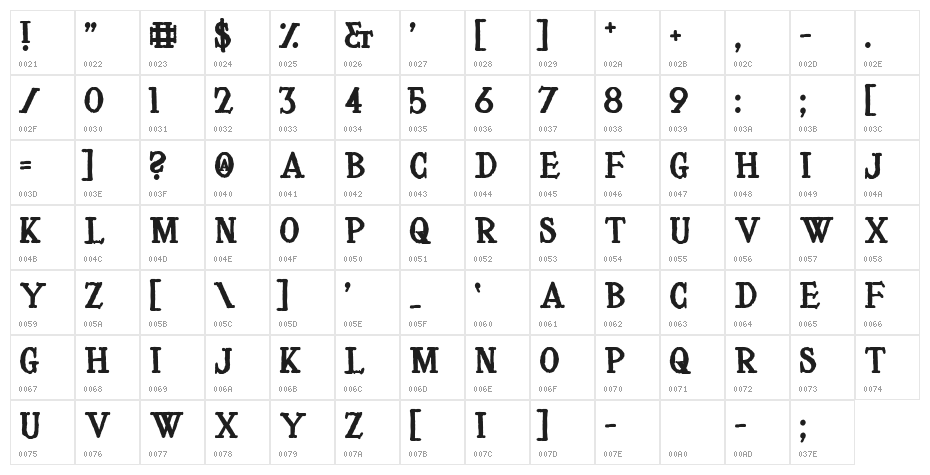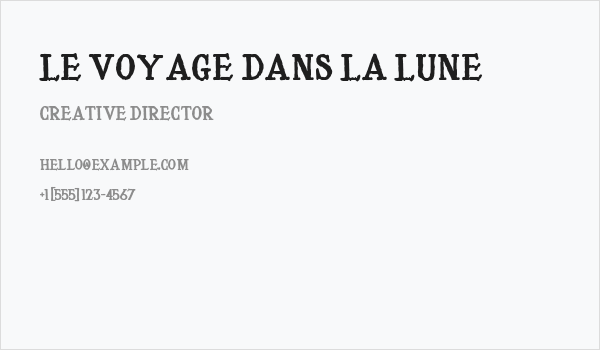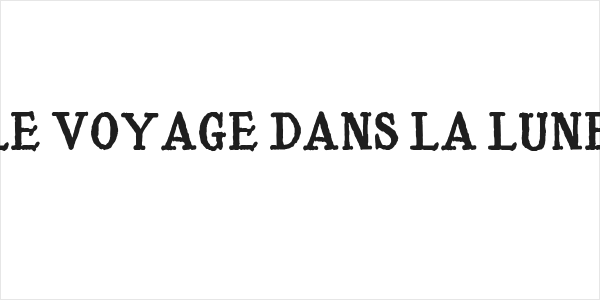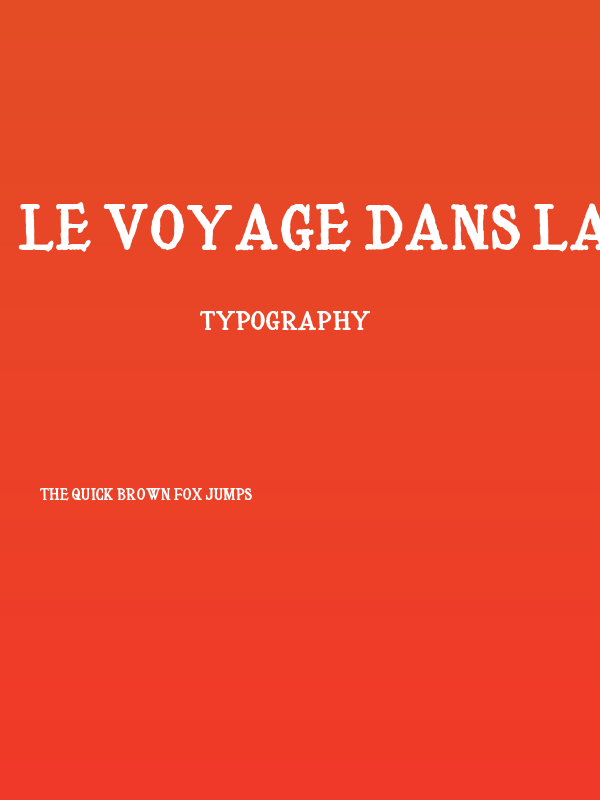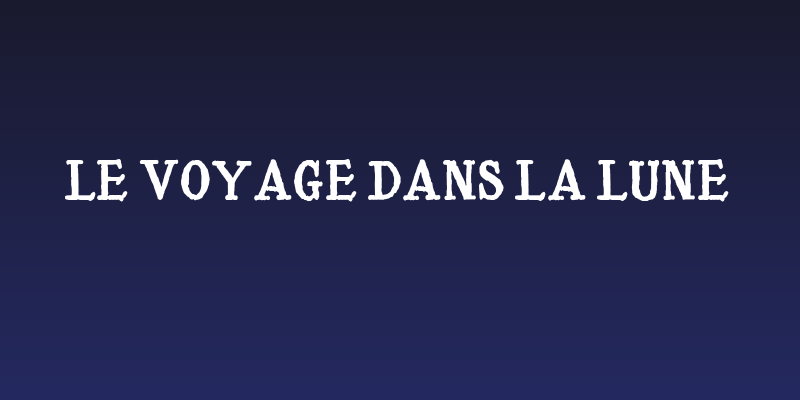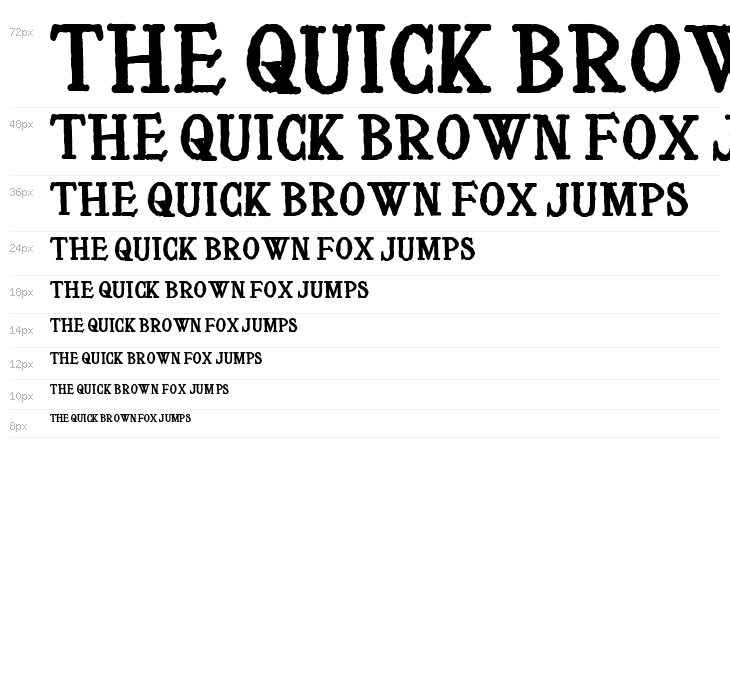
Le Voyage Dans La Lune Font
Le Voyage Dans La Lune Description
This font features a bold, vintage style with a strong presence. The letters are characterized by their thick strokes and slightly irregular edges, giving them a hand-crafted appearance. The uppercase and lowercase letters maintain a consistent style, with the uppercase being slightly more pronounced. Numbers and special characters follow the same design ethos, ensuring a cohesive look across all glyphs. The font's unique texture and boldness make it stand out, ideal for projects that require a touch of nostalgia or a retro feel.
| Proposed Projects | Ideal for vintage-themed posters, retro branding, and decorative headlines. |